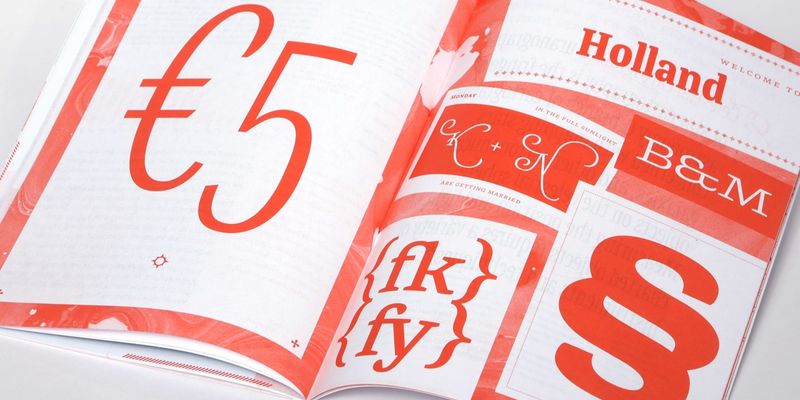
Mala Font Free Download is an elegant serif typeface with a contemporary feel. It combines modern proportions with traditional letterforms to create a timeless yet fresh aesthetic. This font is ideal for use in branding, editorial design, websites, and any project that requires a touch of sophistication and professionalism.